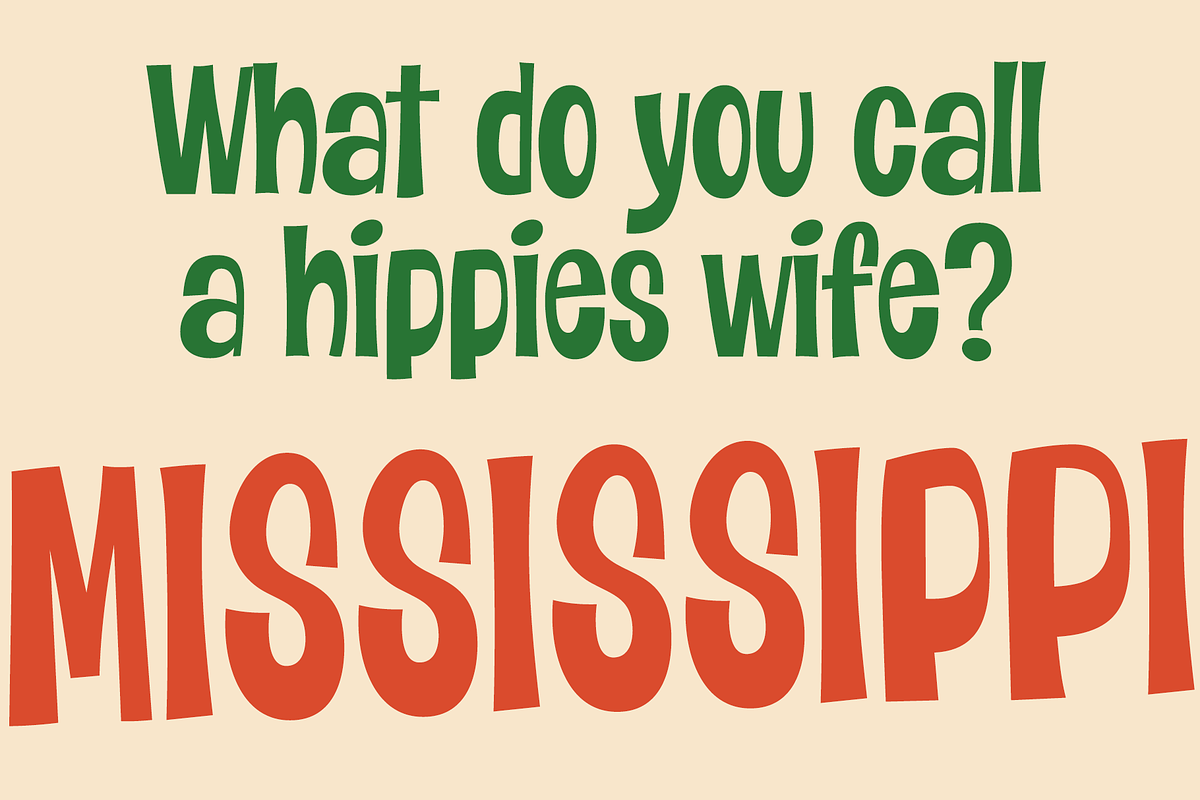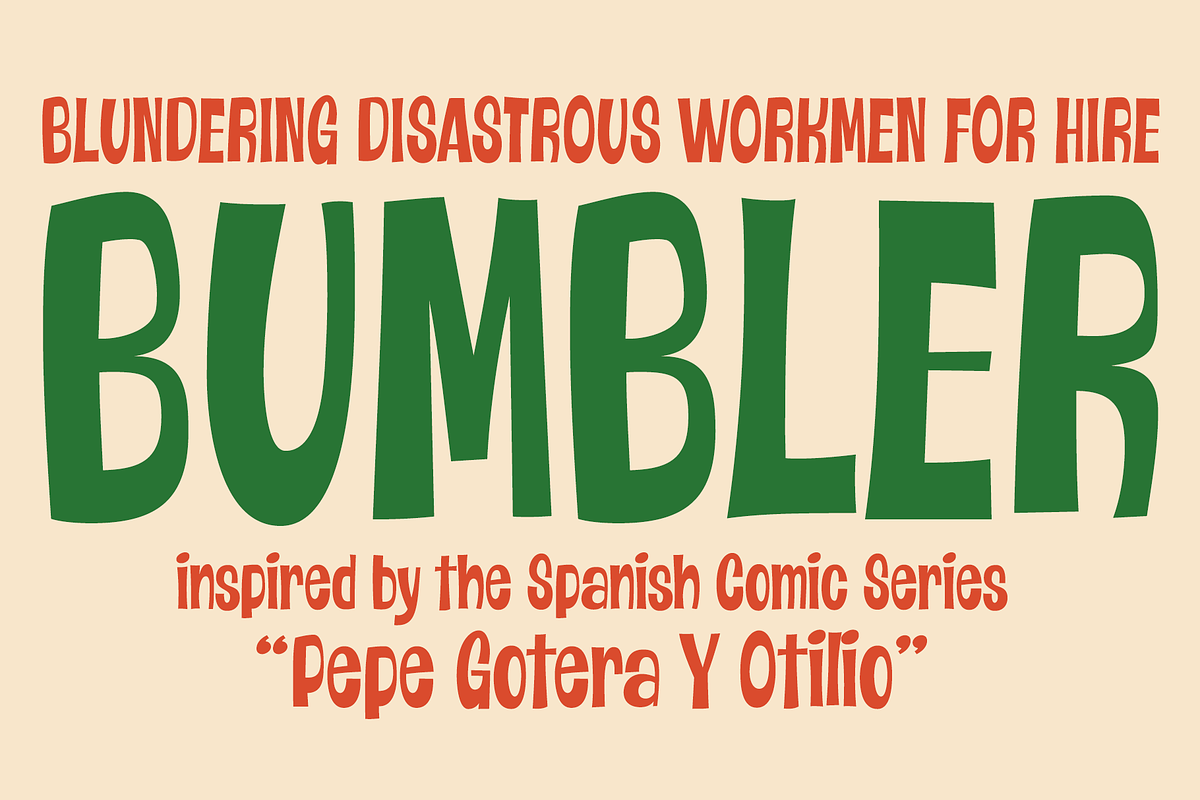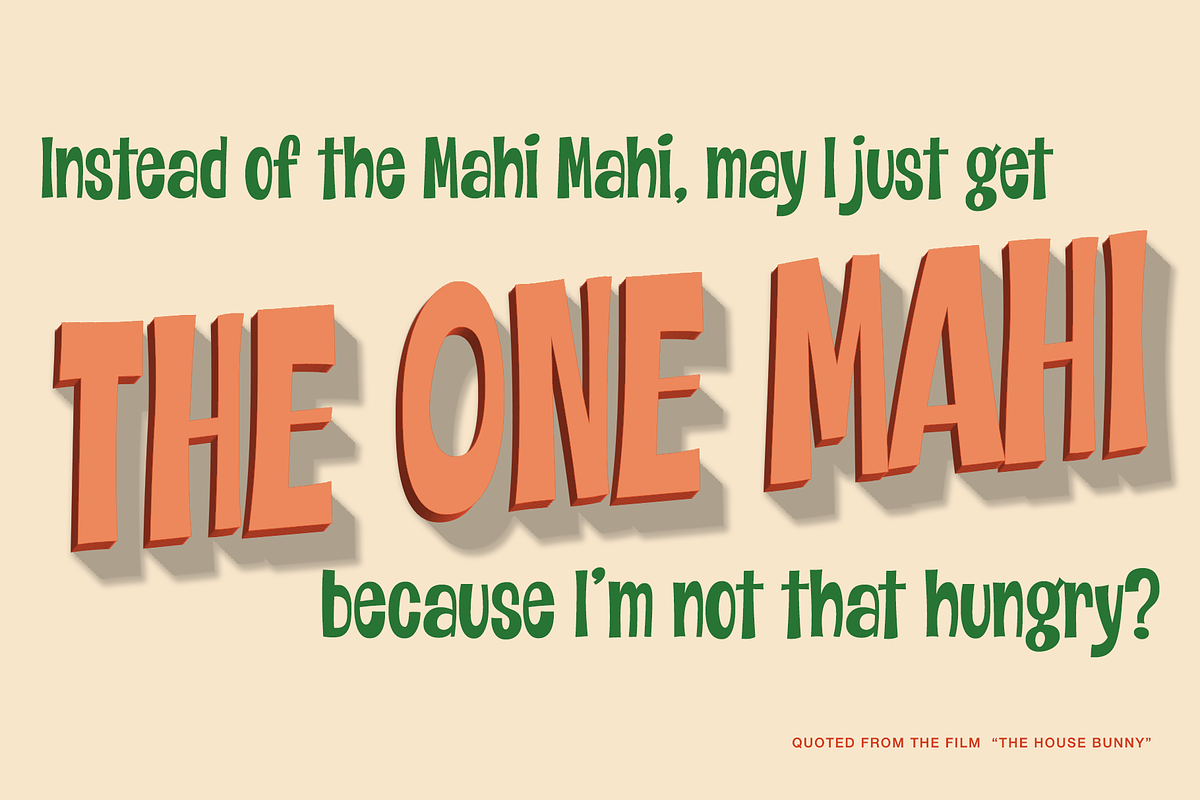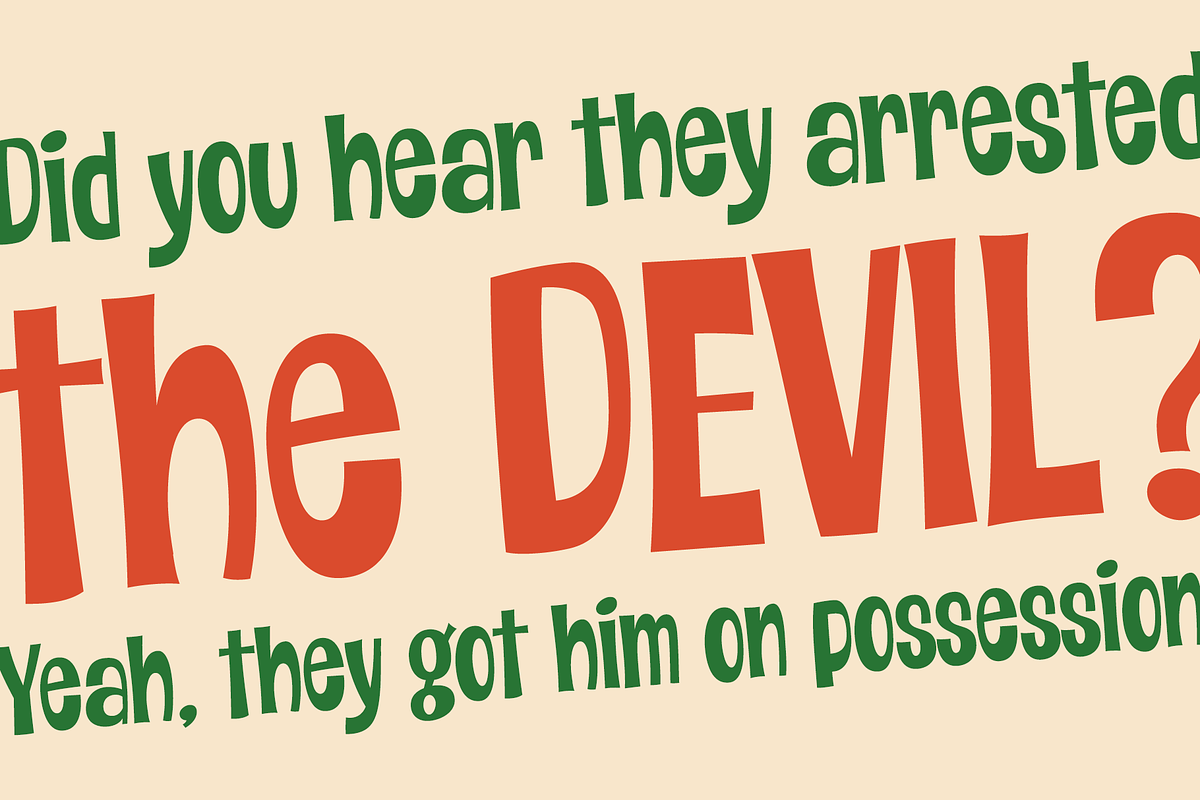
Bumbler PB
Bumbler PB was inspired by the title lettering on Pepe Gotera y Otilio comics from the late 1960's. The lettering primarily capitals and had an odd shift in visual weight that made it lively and unexpected. This recreation of that lettering style includes both Capitals and lowercase, and a full extended Latin character set.
While Pepe Gotera and Otilio were somewhat slackers and bumbling fools, this typeface is made to pull its own weight for your design pleasure.